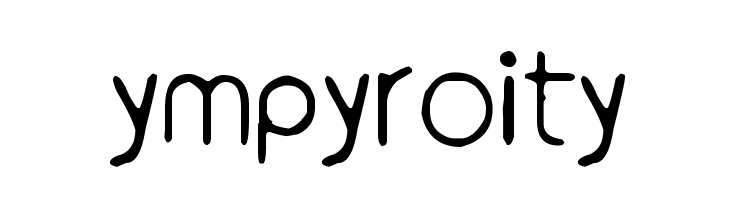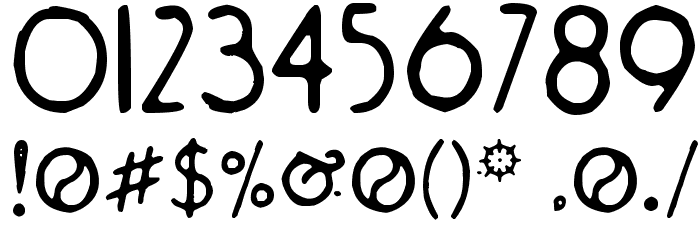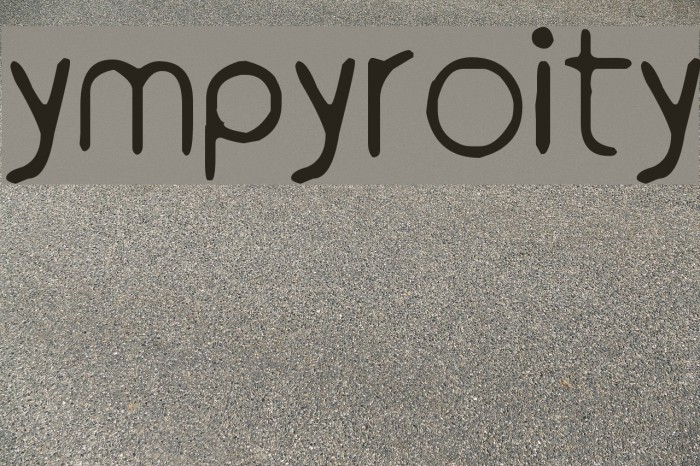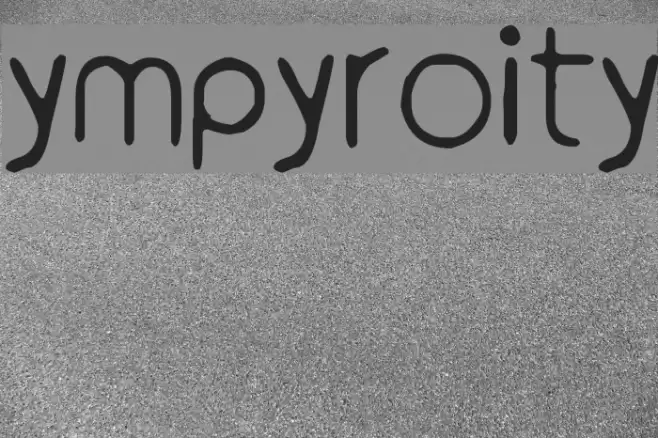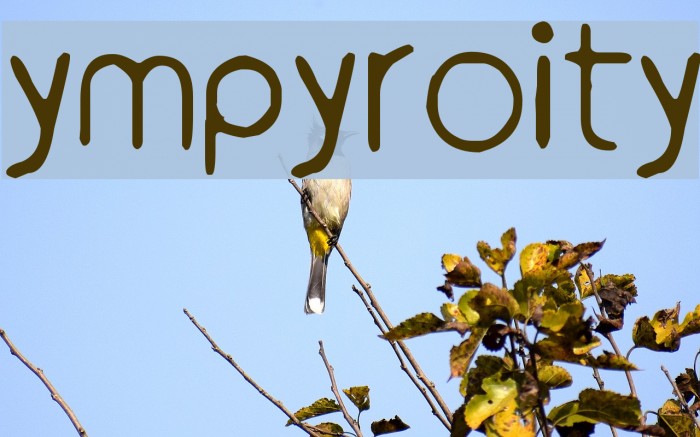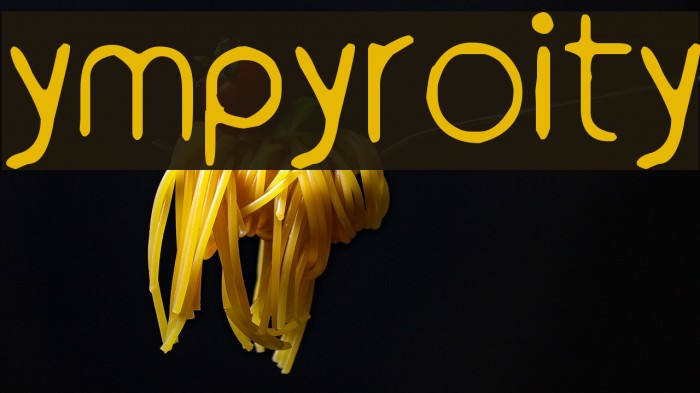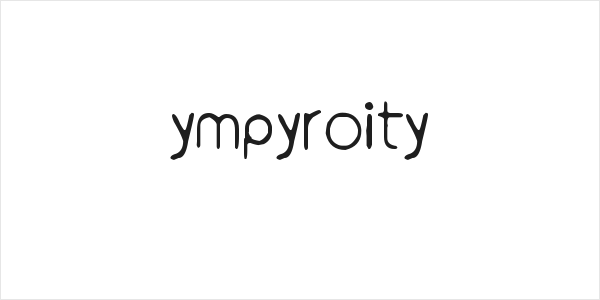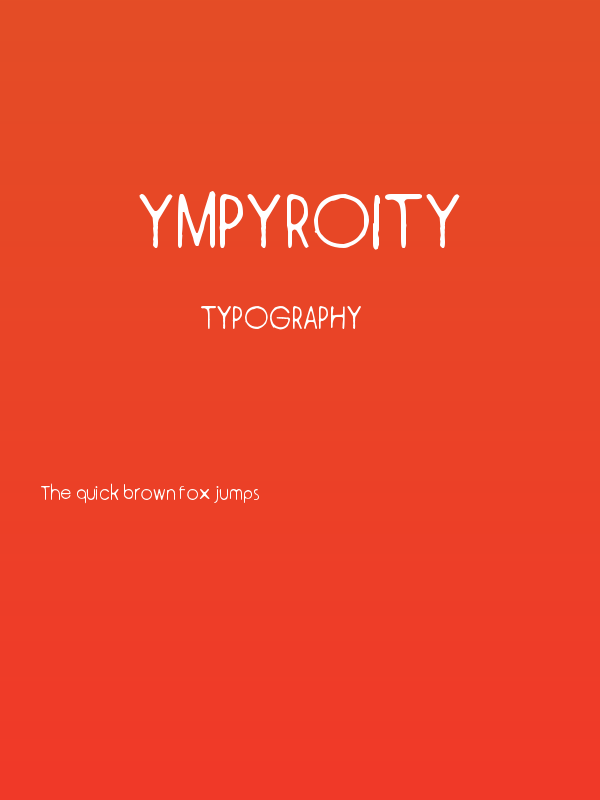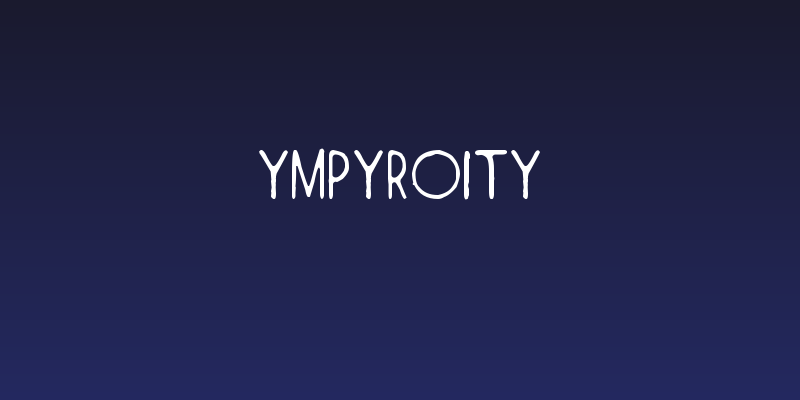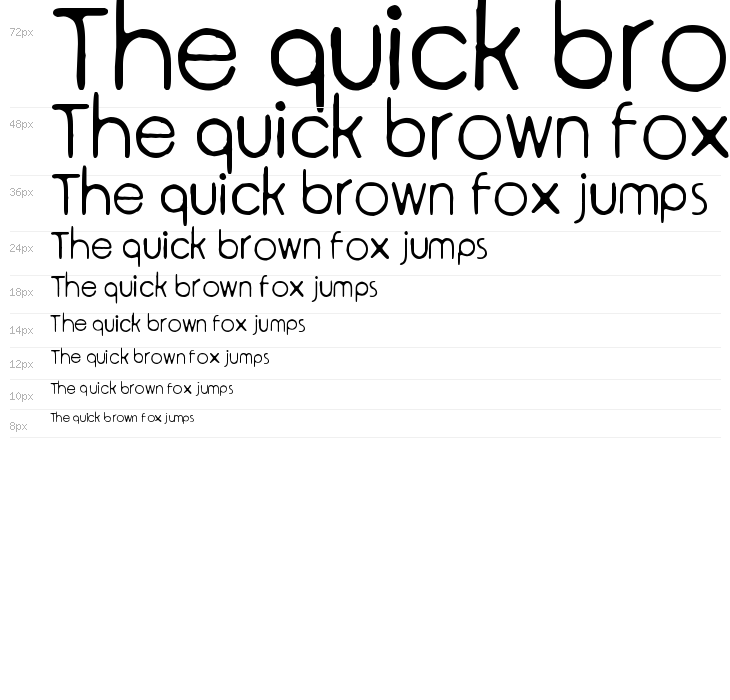
ympyroity Font
ympyroity Description
This font features a playful and whimsical style with rounded, irregular shapes that give it a hand-drawn appearance. The characters have a casual and informal look, with varying stroke widths that add to its charm. The uppercase and lowercase letters maintain a consistent style, while the numbers and special characters are designed to match the overall aesthetic. This font's unique personality makes it suitable for creative and artistic projects.
| Proposed Projects | Ideal for children's books, greeting cards, playful branding, and creative posters. |